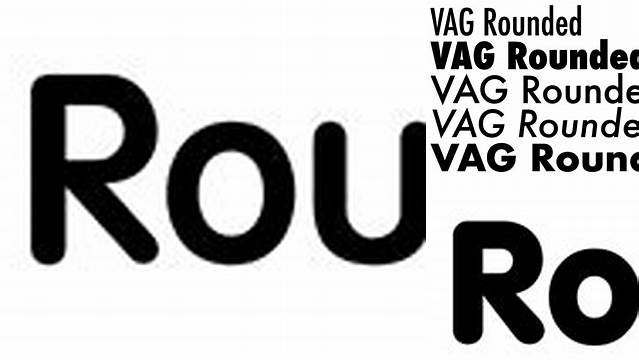
VAG Rounded: Free Font Download Guide
Understanding VAG Rounded Font
Hey guys! Let's dive into what makes the VAG Rounded font so special. VAG Rounded is a sans-serif typeface known for its soft, friendly appearance. Its rounded terminals give it a distinctive and approachable feel, making it a popular choice for various design projects. This font is based on the Futura font. The clean lines and geometric shapes of VAG Rounded ensure legibility and versatility, fitting well in both digital and print media. When designers are looking for a font that combines modernity with warmth, VAG Rounded often comes to mind. From logos to websites, its adaptable nature makes it a valuable asset in any designer's toolkit. Understanding the nuances of VAG Rounded—its history, characteristics, and optimal uses—is the first step in leveraging its full potential in your creative endeavors. With its inviting curves and balanced structure, VAG Rounded continues to be a favorite among designers worldwide, adding a touch of friendliness and clarity to any project. The enduring appeal of VAG Rounded lies in its ability to communicate effectively while maintaining a pleasant and accessible aesthetic, making it a font that truly stands the test of time. Whether you're crafting a brand identity or enhancing user interfaces, VAG Rounded offers a harmonious blend of form and function that elevates your designs.
History and Origins of VAG Rounded
The story behind the VAG Rounded font is quite interesting. It originated from the design standards of Volkswagen AG (VAG) in the late 1970s. The company needed a consistent typeface for their internal and external communications, and thus, VAG Rounded was born. Volkswagen wanted something modern yet approachable, reflecting their brand values. The font was initially developed by Sedley Place Design, and it quickly became an iconic part of the VAG corporate identity. Over time, its popularity spread beyond the automotive industry, and designers began to appreciate its unique qualities. The font's rounded terminals gave it a friendly and accessible look, which made it suitable for a wide range of applications. From signage to advertising, VAG Rounded made its mark. The font's design was influenced by the geometric style of Futura, but with softer edges and a more human touch. This blend of precision and warmth is what sets VAG Rounded apart from other sans-serif typefaces. Its historical roots in corporate branding give it a sense of authority, while its rounded forms make it feel approachable and contemporary. Understanding the history of VAG Rounded provides valuable insight into its design and its continued relevance in modern design. Today, VAG Rounded remains a testament to the power of thoughtful typography in shaping brand identity and communication. Its journey from a corporate standard to a widely used typeface is a fascinating example of how design can transcend its original purpose and become a cultural icon.
Key Characteristics of VAG Rounded Font
Alright, let's break down the key features that make VAG Rounded stand out. The most noticeable characteristic is, of course, its rounded terminals. Unlike traditional sans-serif fonts with sharp edges, VAG Rounded features smooth, curved endings on its strokes. This gives the font a softer, more approachable appearance. Another important aspect is its geometric structure. The font is based on simple geometric shapes, such as circles and rectangles, which gives it a clean and modern look. However, the rounded terminals add a touch of warmth and personality. The x-height of VAG Rounded is relatively high, which improves its legibility, especially in smaller sizes. This makes it a great choice for both headlines and body text. The font also has a consistent stroke weight, which contributes to its overall balance and harmony. VAG Rounded is designed to be versatile, working well in a variety of contexts. Whether you're creating a logo, designing a website, or crafting a print advertisement, VAG Rounded can adapt to your needs. Its friendly and approachable appearance makes it particularly well-suited for brands that want to convey a sense of trust and reliability. In summary, the key characteristics of VAG Rounded include its rounded terminals, geometric structure, high x-height, and consistent stroke weight. These features combine to create a typeface that is both modern and approachable, making it a popular choice among designers worldwide.
Popular Uses of VAG Rounded in Design
So, where do you typically see VAG Rounded being used? It's super versatile, finding its way into tons of different design projects. One of its most popular applications is in logo design. Many companies choose VAG Rounded for their logos because its friendly and approachable appearance can help build trust with customers. Its clean lines and geometric structure also ensure that logos remain legible and recognizable across different sizes and media. Another common use is in website design. VAG Rounded works well for both headlines and body text, providing a consistent and easy-to-read experience for website visitors. Its rounded terminals add a touch of warmth to digital interfaces, making them feel more inviting. In the world of advertising, VAG Rounded is often used to create eye-catching and persuasive campaigns. Its friendly appearance can help draw attention and convey a positive message. The font is also frequently used in signage, where its legibility and clarity are essential. Whether it's for wayfinding or promotional signs, VAG Rounded ensures that information is easily readable and accessible. Mobile apps also benefit from the clarity and simplicity of VAG Rounded, ensuring a user-friendly interface. In print media, VAG Rounded shines in brochures, posters, and magazines, delivering both readability and visual appeal. Overall, the versatility of VAG Rounded makes it a go-to choice for designers looking to create a modern and approachable look. From digital platforms to physical materials, its adaptability ensures that your message is always clear, friendly, and effective.
Alternatives to VAG Rounded Font
If you can't find a free version of VAG Rounded or if you're looking for something slightly different, don't worry! There are plenty of great alternatives that offer a similar aesthetic. One popular choice is Avenir. This geometric sans-serif typeface has a clean and modern look, with rounded terminals that give it a friendly appearance. Avenir is available in a variety of weights and styles, making it a versatile option for many design projects. Another excellent alternative is Circular. Designed by Laurenz Brunner, Circular is a contemporary sans-serif font that features rounded letterforms and a slightly condensed design. Its clean lines and balanced proportions make it a great choice for both headlines and body text. Sofia Pro is another strong contender. This versatile typeface combines geometric forms with humanist elements, resulting in a friendly and readable font. Sofia Pro is available in a wide range of weights and styles, making it suitable for a variety of design applications. If you're looking for something a bit more playful, consider Cabin. This humanist sans-serif font features rounded terminals and a slightly quirky design. Cabin is a great choice for projects that require a touch of personality. Open Sans is a widely used font that offers excellent legibility and a clean, modern look. While it doesn't have the same rounded terminals as VAG Rounded, it's a versatile option that works well in many contexts. Each of these alternatives offers a unique take on the rounded sans-serif aesthetic, providing designers with a range of options to suit their specific needs and preferences. Trying out different fonts is a great way to discover new favorites and expand your typographic toolkit.
The Enduring Appeal of VAG Rounded
So, why does VAG Rounded continue to be a favorite among designers? Its enduring appeal lies in its unique combination of modernity, friendliness, and versatility. Timeless Design: VAG Rounded has a classic design that transcends trends. Its clean lines and rounded terminals make it a typeface that will likely remain stylish for years to come. Versatility: VAG Rounded can be used in a wide variety of design projects, from logos and websites to print materials and user interfaces. Its versatility makes it a valuable asset for any designer. Approachability: The rounded terminals of VAG Rounded give it a friendly and approachable feel. This makes it a great choice for brands that want to build trust and rapport with their audience. Readability: VAG Rounded is designed for readability, with clear, legible letterforms that are easy to read on screens and in print. Professionalism: Despite its friendly nature, VAG Rounded still maintains a sense of professionalism and sophistication. It's a typeface that can be used in both casual and formal contexts. A Touch of Nostalgia: For some designers, VAG Rounded evokes a sense of nostalgia, reminding them of a simpler time in design. This can add to its appeal and make it a comforting and familiar choice. In a world of ever-changing design trends, VAG Rounded remains a constant, providing designers with a reliable and versatile typeface that they can always count on. Its enduring appeal is a testament to its timeless design and its ability to connect with audiences on an emotional level.